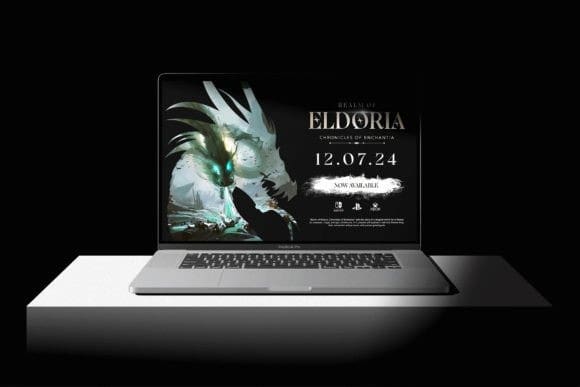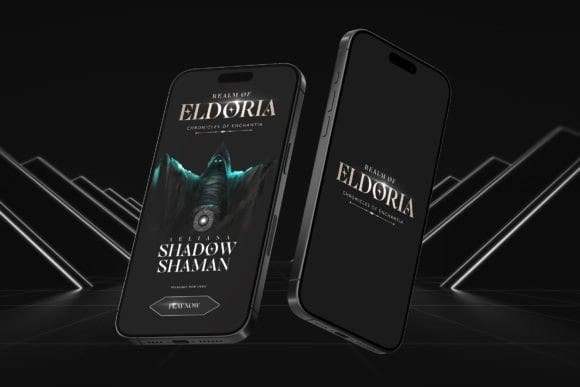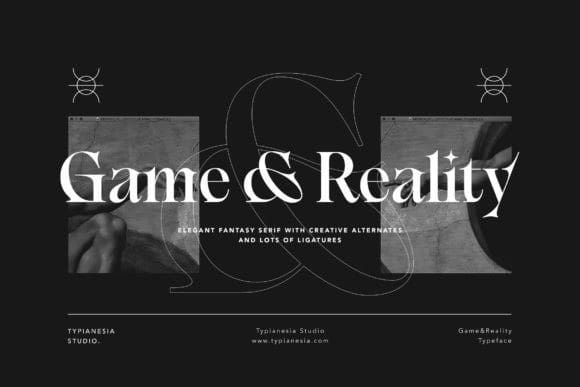
Game And Reality Font
Game And Reality Font – A Fusion of Elegance and Fantasy Serif – Magical Elegance and Enchantment in Every Creative Project
Game And Reality is a sophisticated Elegant Fantasy Serif font designed to bring a touch of enchantment to your creative projects. Ideal for a wide range of applications, from branding and packaging to editorial design and fantasy-themed projects, such as Fantasy Book Covers and Publishing, Tabletop Games and Accessories, Virtual Reality (VR) Gaming Platforms, Fantasy-themed Fashion and Accessories.
Game And Reality adds an elegant and mystical flair to your typography. The font comes with ligatures feature, enhancing the overall aesthetic and ensuring a smooth, visually appealing reading experience. Making it an ideal choice for projects that demand a balance between fantasy and refinement. This typeface is designed to elevate gaming interfaces, book covers, and other creative endeavors, delivering a touch of magic to every project.
Experience the magic of Game and reality – Elevate your designs with the perfect blend of fantasy and sophistication.